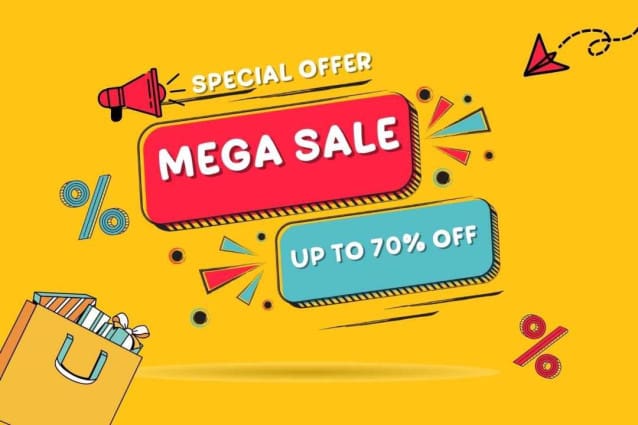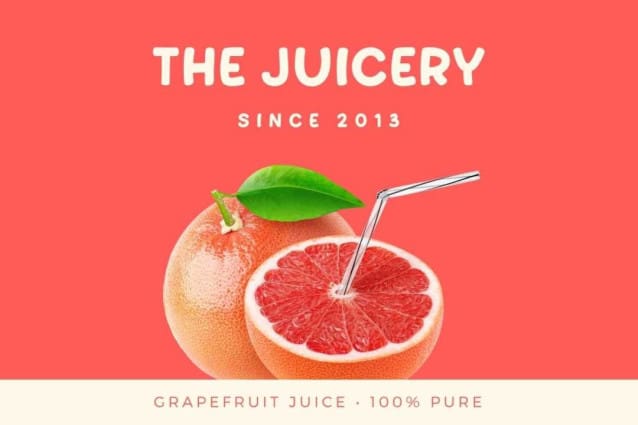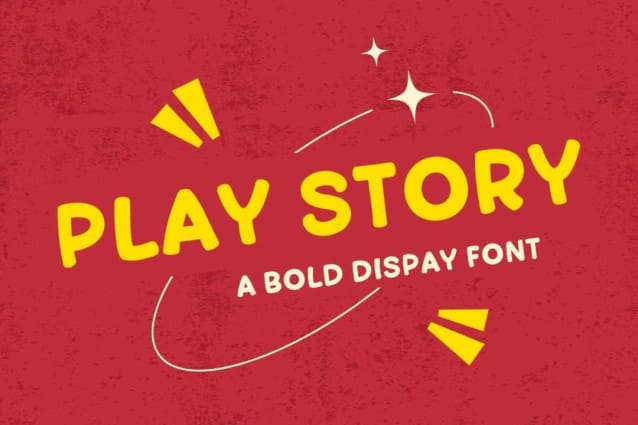
Play Story Font
Play Story Font, is a chunky, comic, and cartoon display font. With its neat and joyful personality, this font will enhance any project you wish to create!